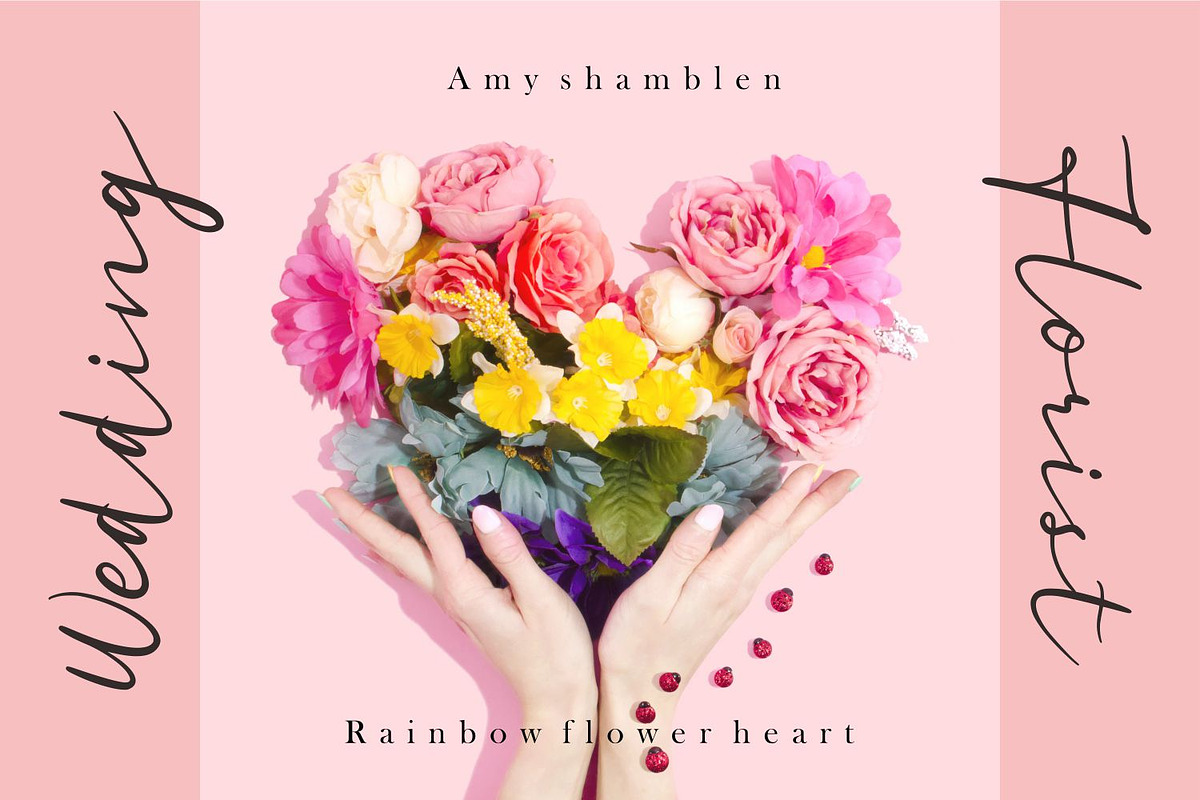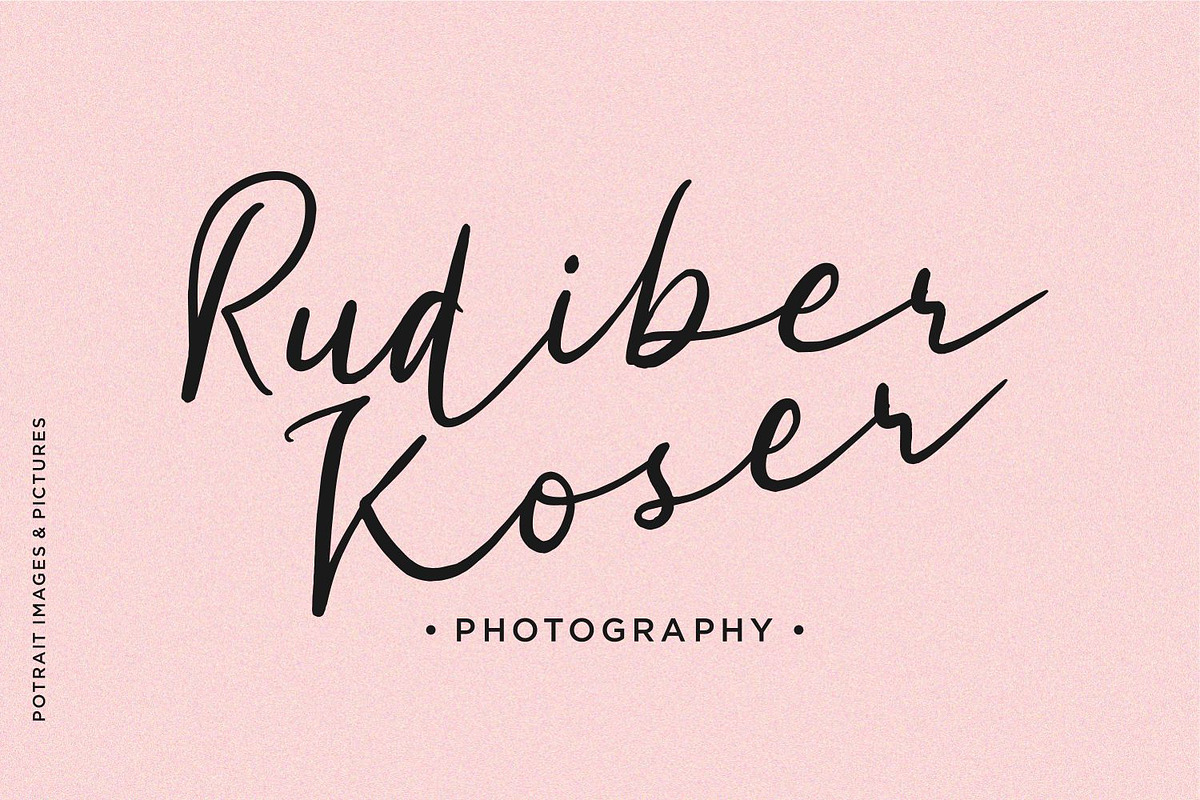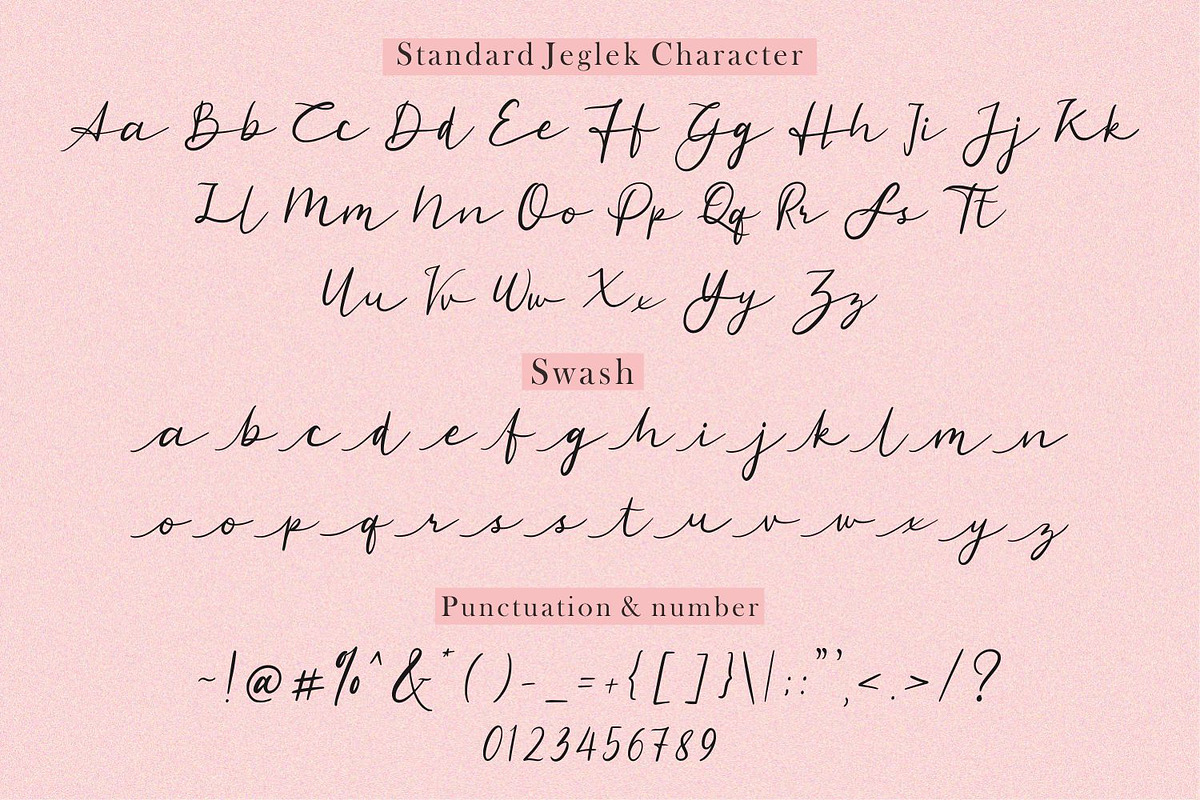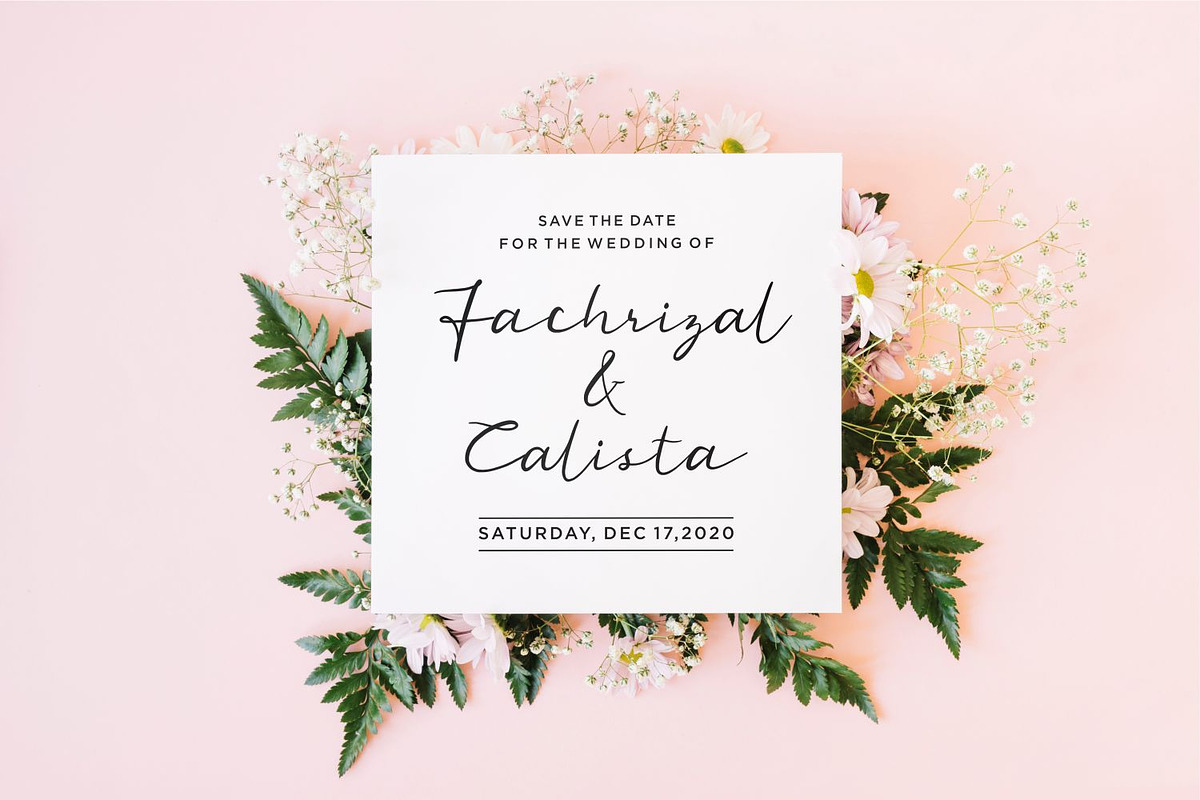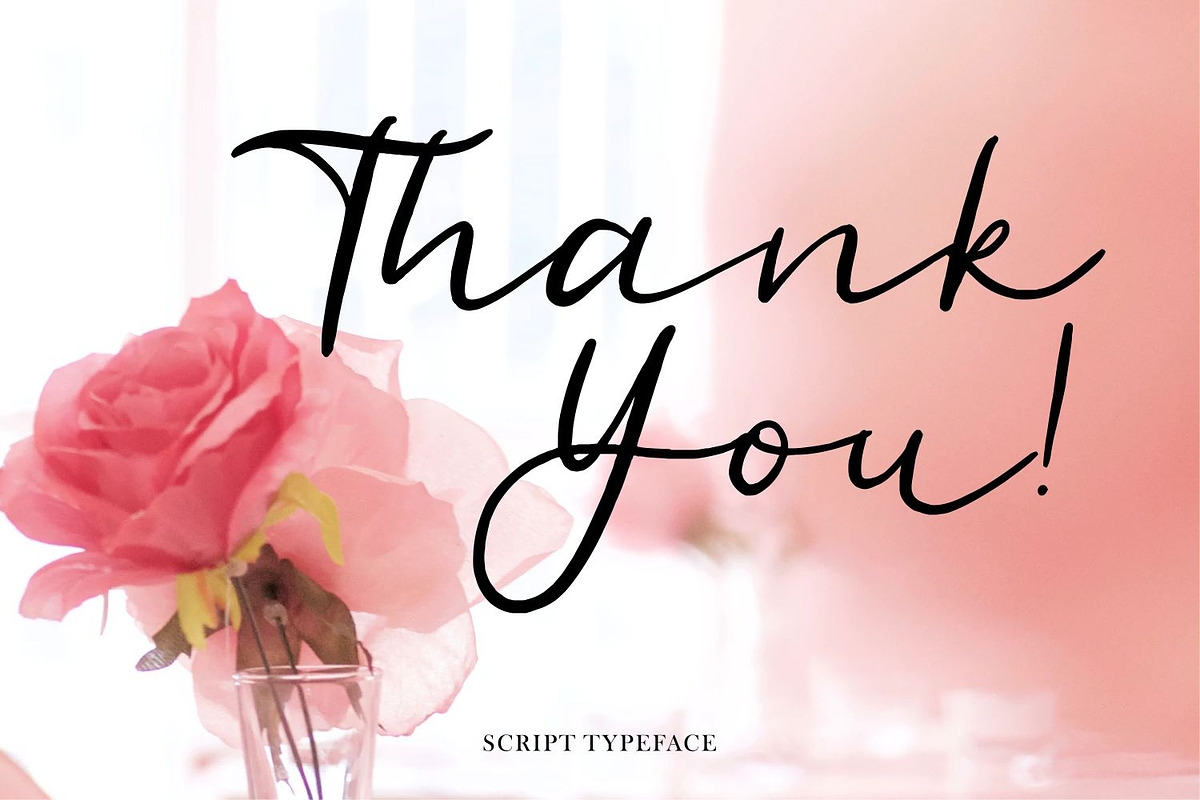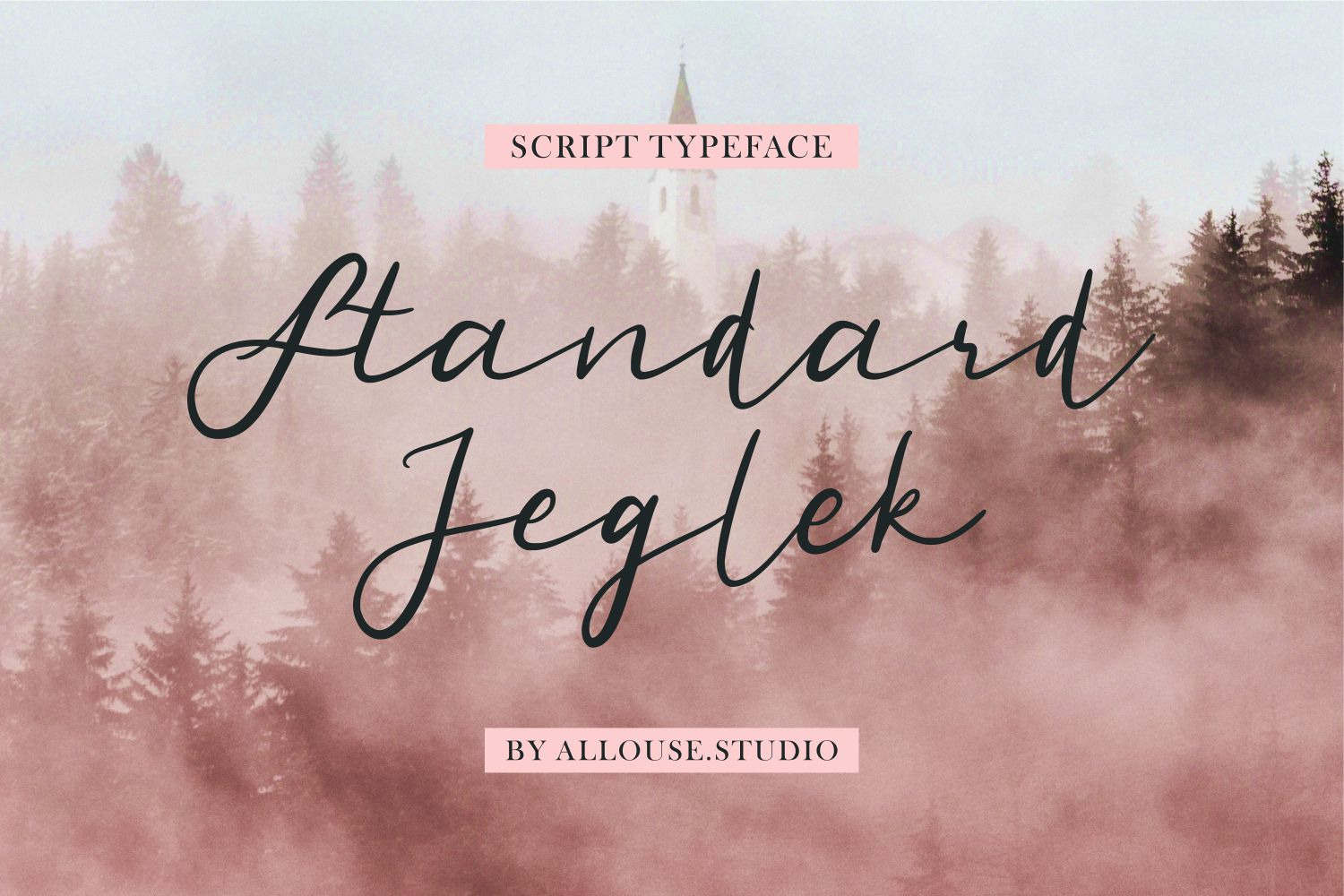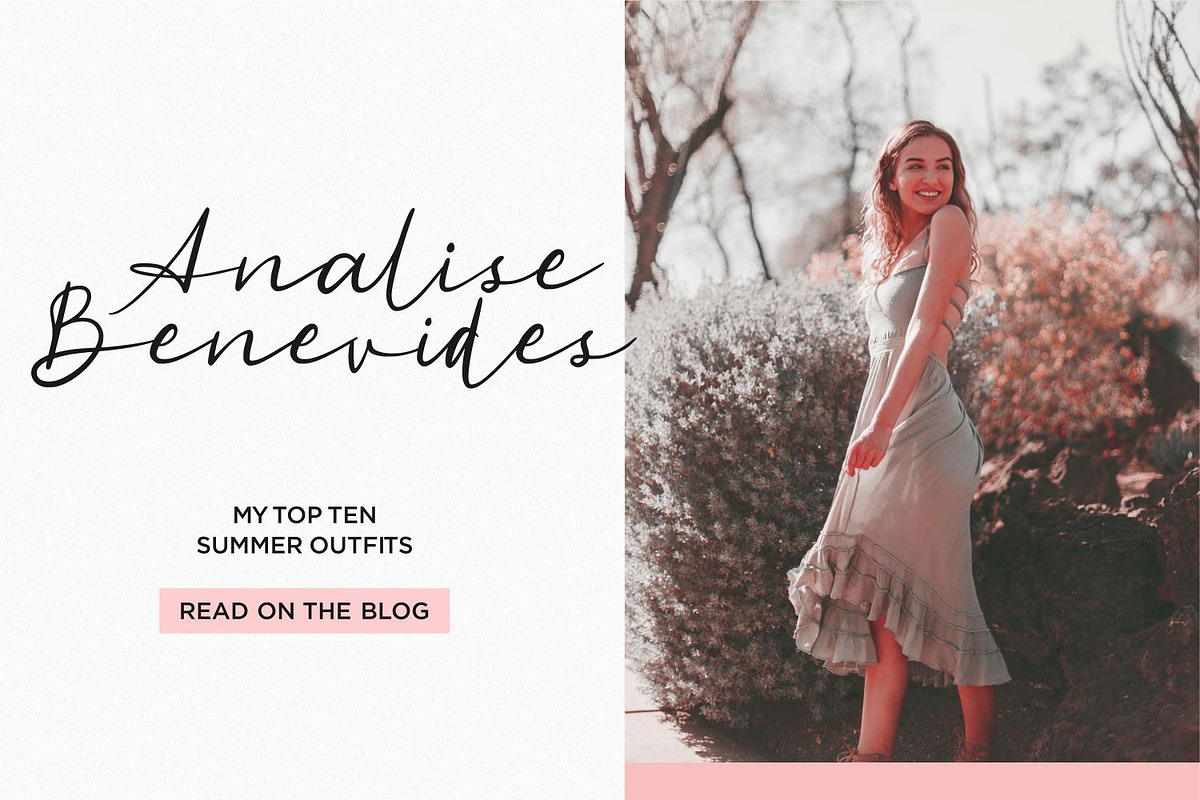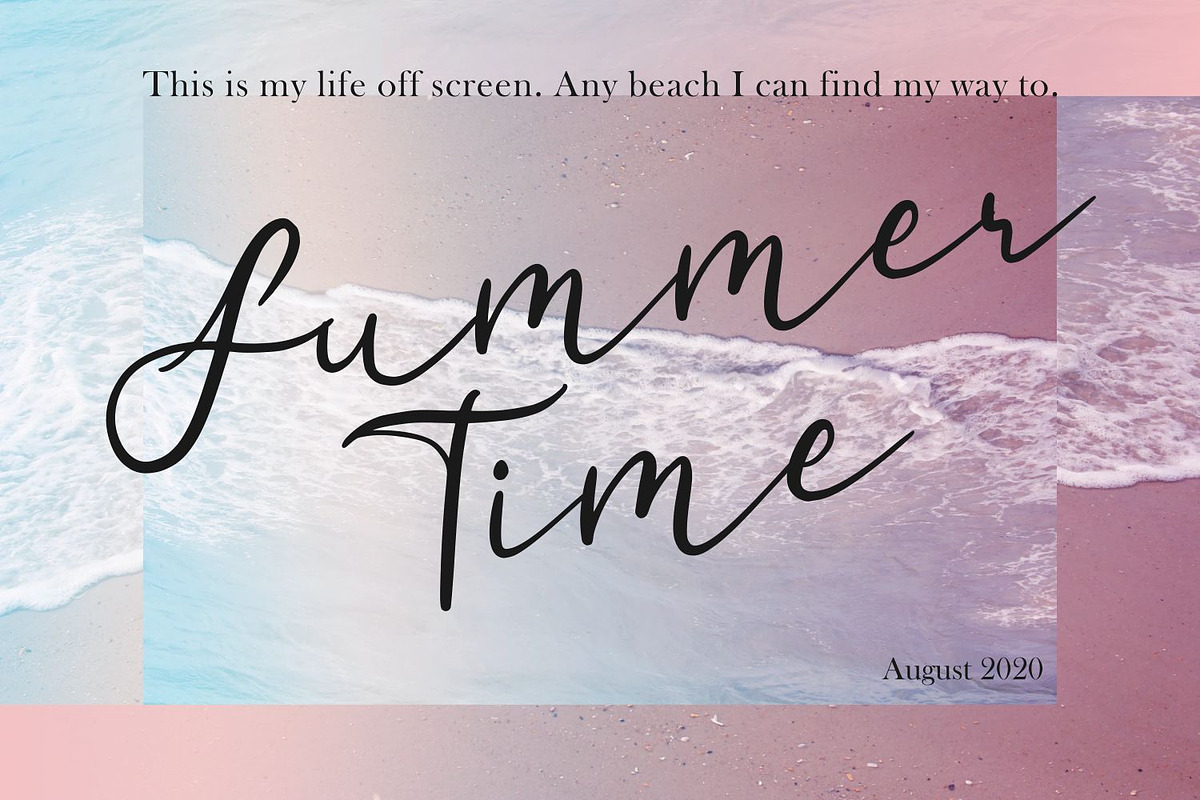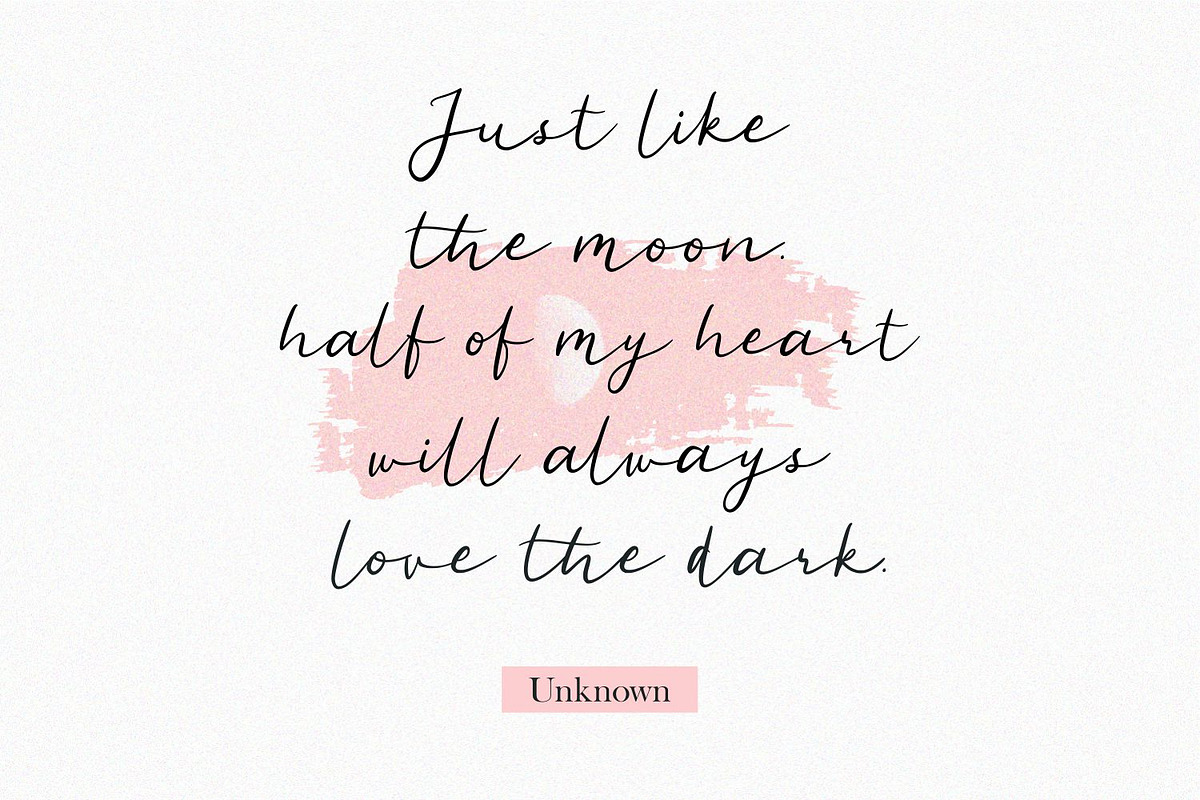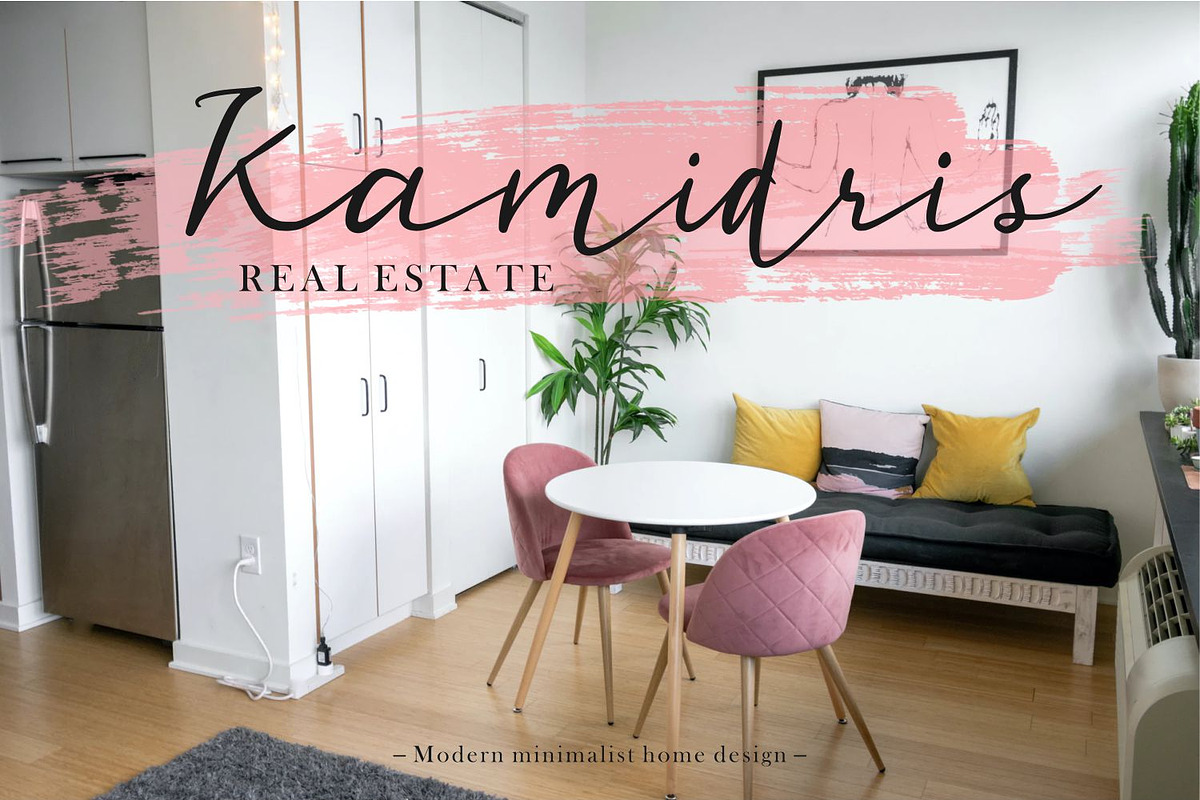
Standard Jeglek Font
Proudly Present, Standard Jeglek.
Standard Jeglek is a Script Typeface Font.
Standard Jeglek is perfect for product packaging, branding project, megazine, social media, wedding, or just used to express words above the background.